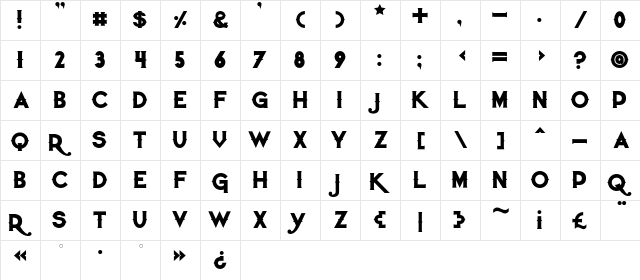
Quiet the Thief Bold
| Foundry | Matthew Tyndall |
| Designer | Matthew Tyndall |
Design Context for Quiet the Thief Typeface
Quiet the Thief takes a measured approach to typography — its balanced proportions and neutral character make it a reliable workhorse for both digital and print work. Its bold stroke weight gives it real presence on the page.